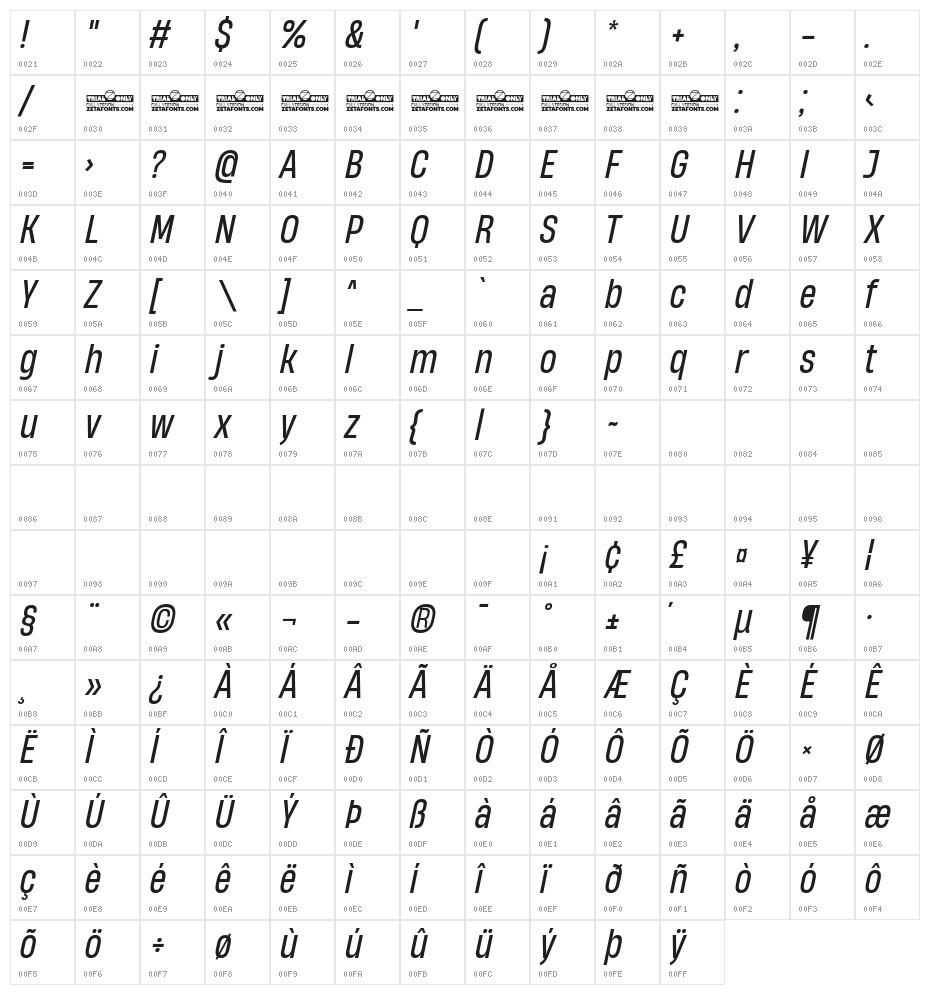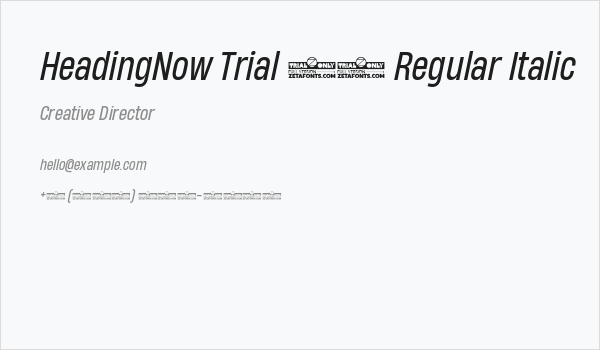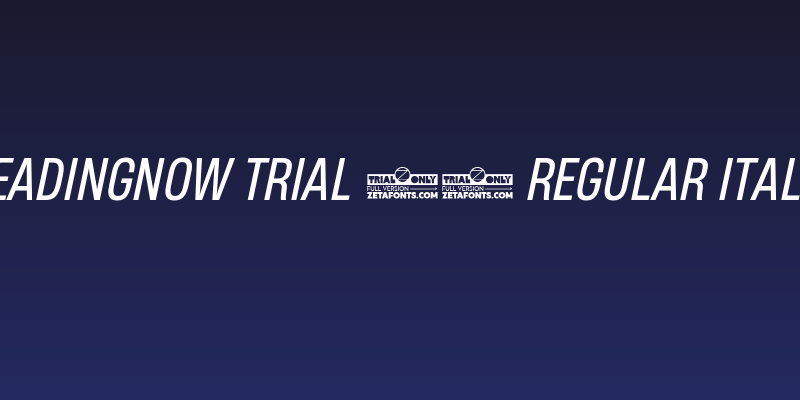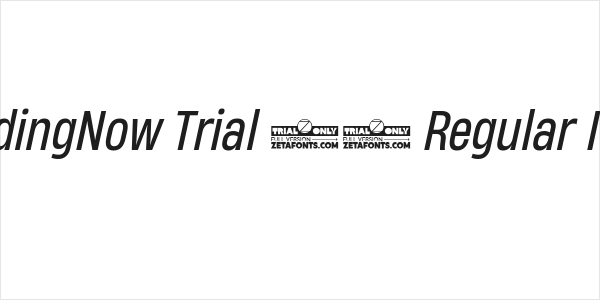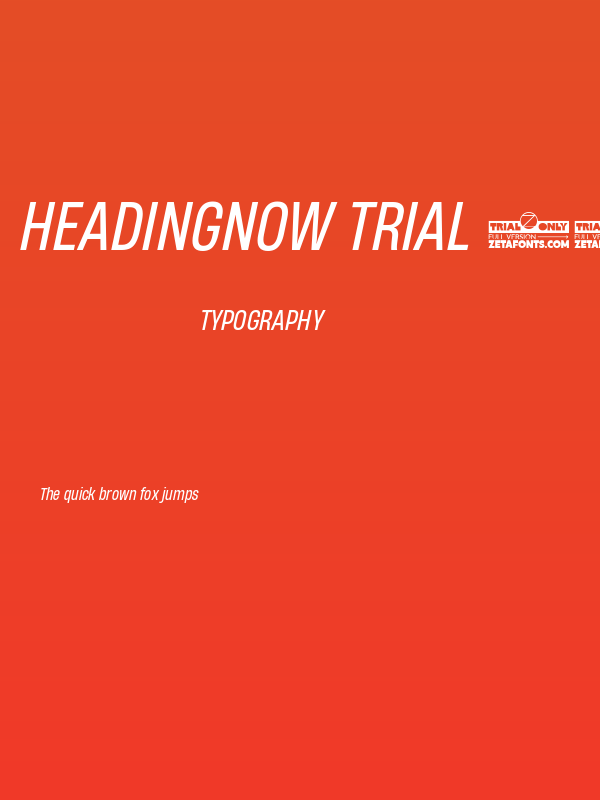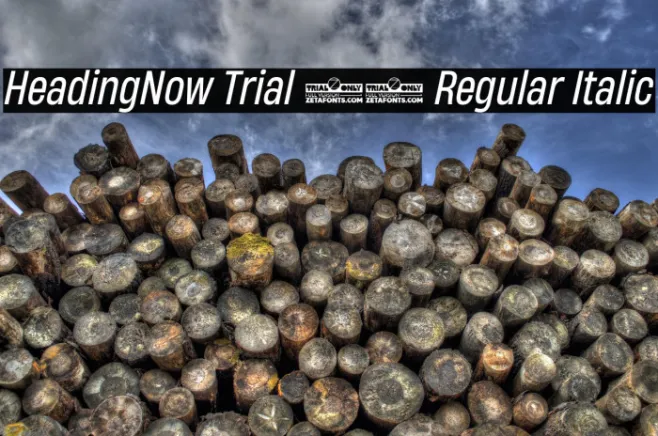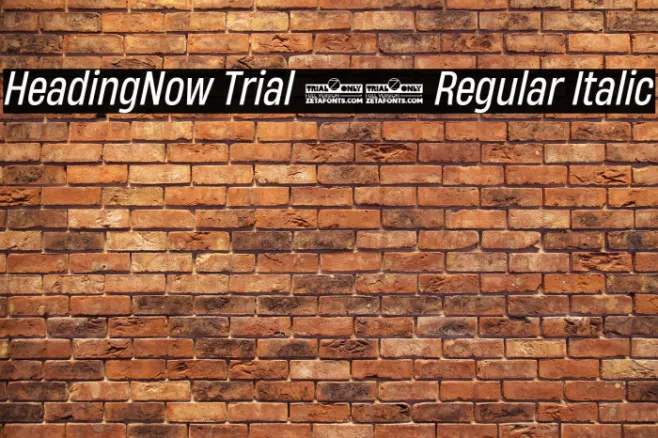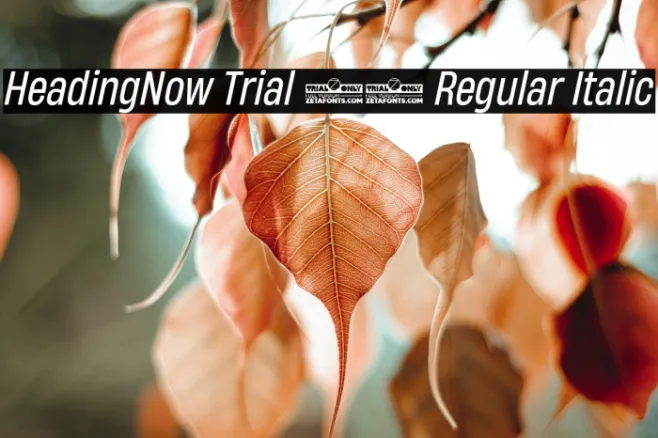
HeadingNow Trial 54 Regular Italic Font
HeadingNow Trial 54 Regular Italic Description
This typeface presents a modern and sleek design with a slightly italicized slant, giving it a dynamic and forward-moving appearance. The characters are clean and well-defined, featuring a sans-serif style that emphasizes simplicity and readability. The uniform stroke width across all characters contributes to a harmonious and balanced look, making it suitable for a variety of applications. The font maintains a consistent character spacing that ensures legibility, even at smaller sizes. Its contemporary aesthetic is ideal for projects that require a professional and polished look.
| Proposed Projects | Ideal for branding, advertising, digital media, and editorial design where a modern and professional appearance is desired. |